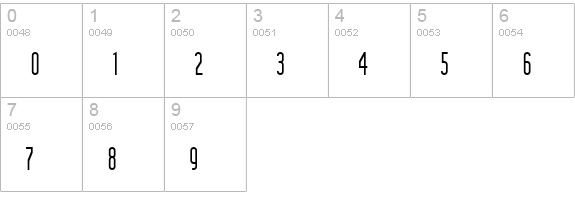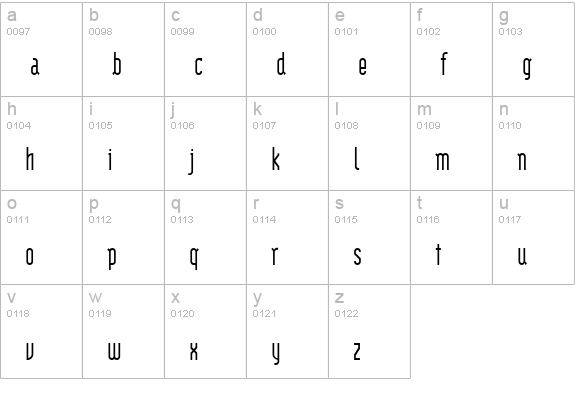
Modula Regular is the standard, neutral variant in the Modula typeface family \xE2\x80\x94 well suited to general body text, paragraphs, and standard typographic work.
Modula Regular is a modern and versatile font that exudes a sleek and professional aesthetic. With its clean lines and balanced proportions, this typeface is perfect for a wide range of design projects, from branding to editorial work. The simplicity and clarity of Modula Regular make it highly legible, ensuring that your message is conveyed with clarity and impact. What's even better is that Modula Regular is available for free download at FontsMarket.com. This means that you can start using this elegant font in your projects without any cost, making it a valuable addition to your design toolkit. Whether you're working on a logo, website, or print materials, Modula Regular offers a timeless and contemporary look that will elevate your design work to the next level. Download Modula Regular today and experience the versatility and sophistication of this exceptional font.